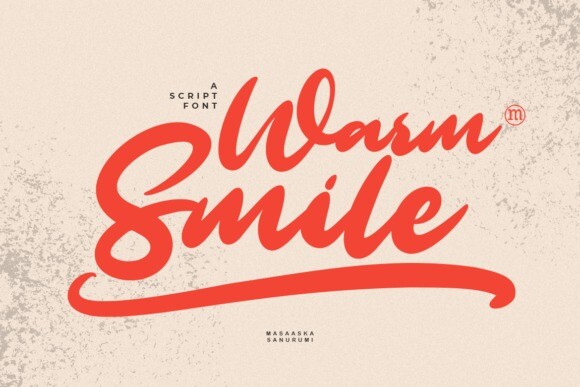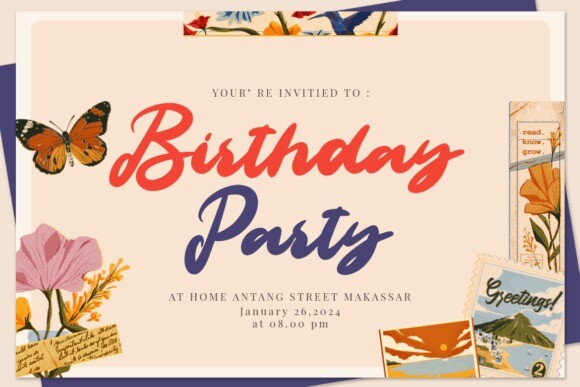
Warm Smile Font
Warm Smile is a beautiful and modern script font, defined by simplicity and style. Whether you’re looking for fonts for Instagram or calligraphy scripts for DIY projects, this font will turn any creative idea into a true piece of art!